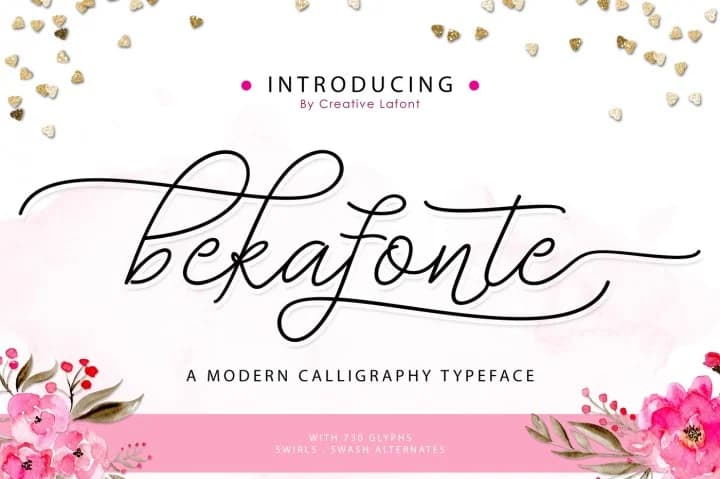
Bekafonte Font by barland is a flowing script typeface that captures the expressive, personal quality of genuine handwriting. The refined letterforms balance expressive curves with excellent readability, remaining crystal clear whether displayed at large headline sizes or in smaller point settings. This thoughtful approach makes the typeface equally effective for eye-catching headlines and extended text passages.
The font truly excels in projects requiring genuine human warmth and refined tactile character. Wedding invitation suites benefit from its romantic, intimate aesthetic, while artisan product labels on platforms like Etsy leverage its sophisticated boutique sensibility. Luxury skincare and cosmetics brands frequently employ similar typographic choices for their packaging designs, recognizing how handwritten scripts communicate craftsmanship and care. Custom vinyl decal designs, personalized greeting cards, and social media story graphics all gain character and visual personality when rendered in this script, helping brands establish distinctive visual identities that resonate with audiences.
Bekafonte Font is a script font that shines as a display or heading face. Pair it with a clean sans-serif or serif font for body text β the contrast creates a clear hierarchy while the two styles stay balanced and easy to read.
Bekafonte Font